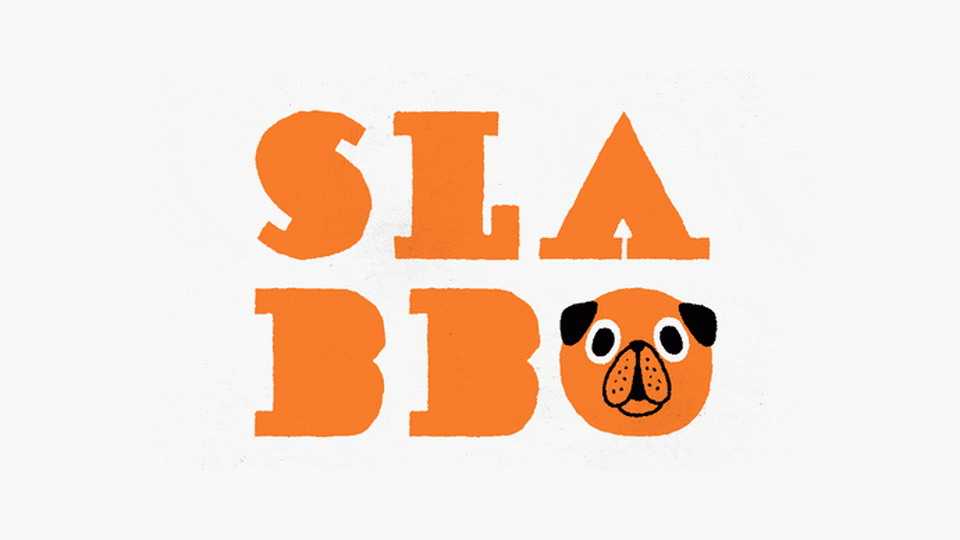
Download Slabbo font, a bold, messy and strong all caps slab serif font.Slabbo font is perfect for crafts, vintage designs, kids goods, posters, headlines, prints and more.
Designer: Mauro Gatti